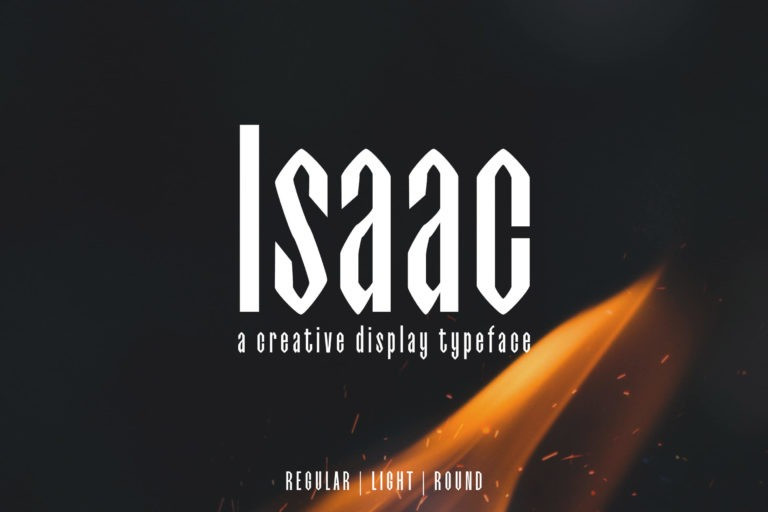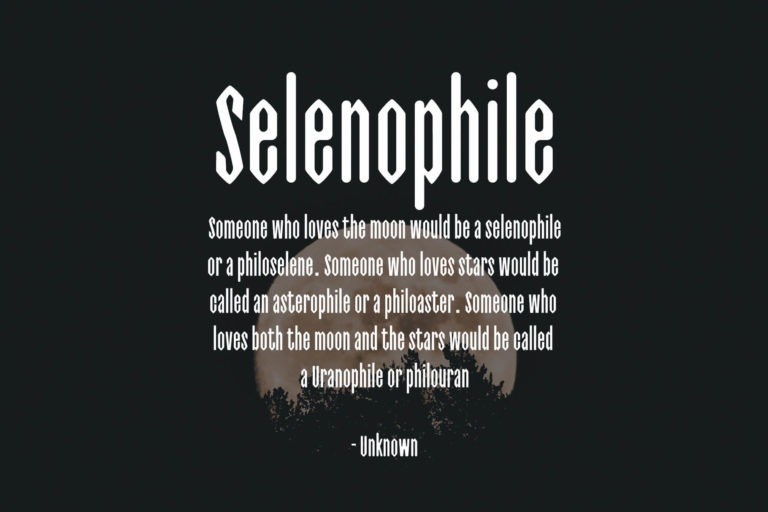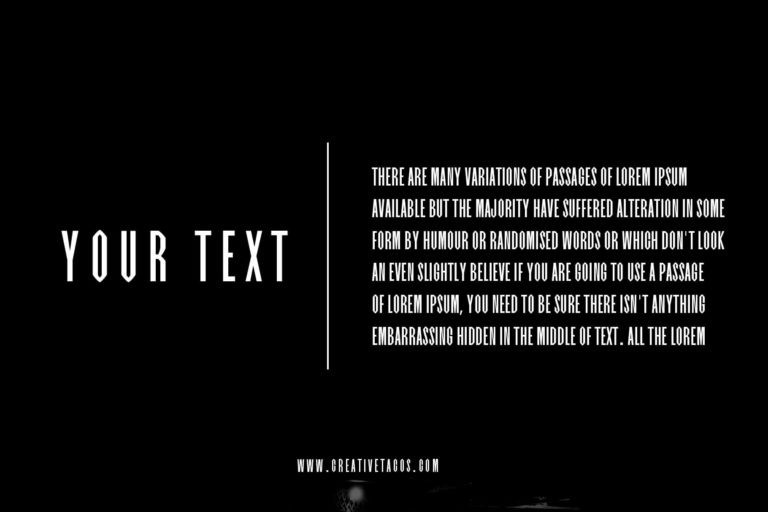
Isaac Font
Isaac Display Font
This is a sans based font with unique lowercase & uppercase that will make your design looks futuristic and modern. It includes uppercase, lowercase, number, punctuation, symbols, with non-english characters. Isaac makes it perfect for logo, greeting cards, posters, branding, name card, stationary, design title, blog header, quotes, typography, headlines, packaging, presentations, titles, magazines, headings, web layouts, advertising, invitations, packaging design, books, and nearly any creative design.